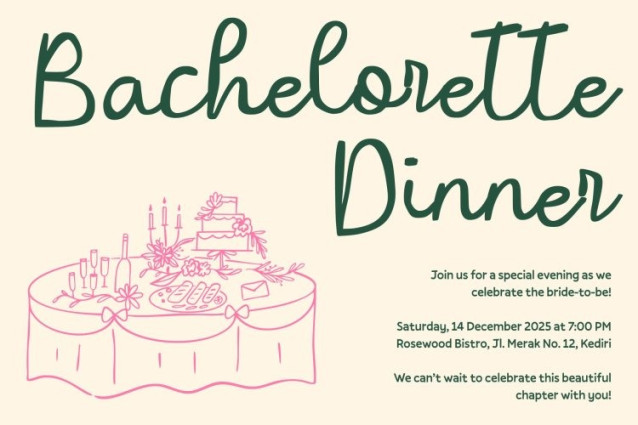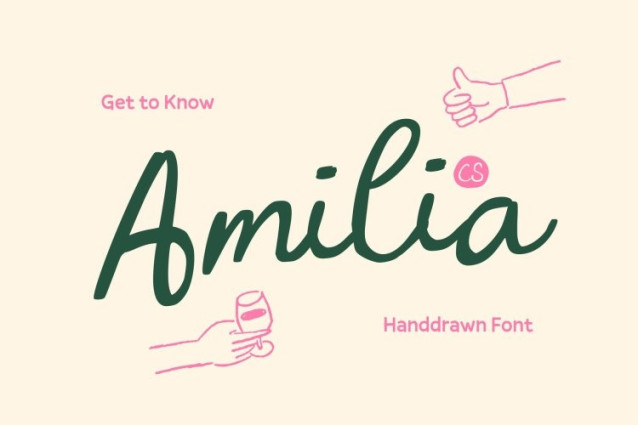
CS Amilia Font
CS Amilia Font This font is an artistic handwritten script designed with fluid strokes and expressive curves that bring a sense of beauty and warmth to any project. Each letter flows naturally, creating a graceful handwritten feel that stands out with charm and personality. Its smooth, organic movement makes it perfect for designers seeking a stylish and visually engaging script.
Stylish Swashes and Flourishes for Added Elegance
What sets this font apart is its refined swashes and decorative flourishes. These elegant details elevate the font, giving every word a touch of sophistication. Whether used for standout headlines or delicate accents, the flourished shapes add a sense of artistry that enhances visual storytelling and creates a memorable impression.
Perfect for Branding and Signature-Style Logos
This font shines in branding projects that require a personal, elegant, and expressive touch. Its handwritten nature gives logos, taglines, and brand marks a refined yet approachable feel, ideal for beauty products, boutique shops, fashion brands, and lifestyle businesses. The artistic strokes help convey authenticity and style, making brands feel unique and thoughtfully crafted.
Ideal for Invitations, Event Posters, and Creative Layouts
With its romantic flow and decorative finesse, this font is a beautiful choice for invitations, wedding stationery, greeting cards, and special event posters. The font adds emotional warmth and visual drama, making every message feel more special and meaningful.